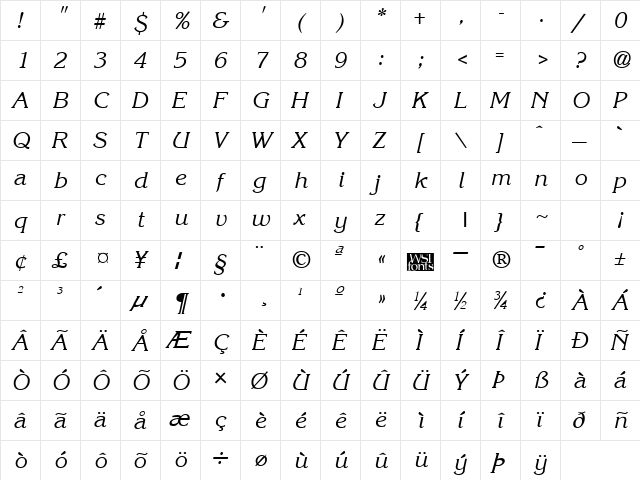
Krone Italic
Design Context for Krone Typeface
Krone is a composed and adaptable typeface that performs quietly and consistently across a wide range of design contexts. The dynamic lean of this cut emphasises speed and emphasis in any layout.
Pro Tip: Use Krone for emphasis, pull quotes, and subheadings where its slanted energy can add rhythm to the layout.